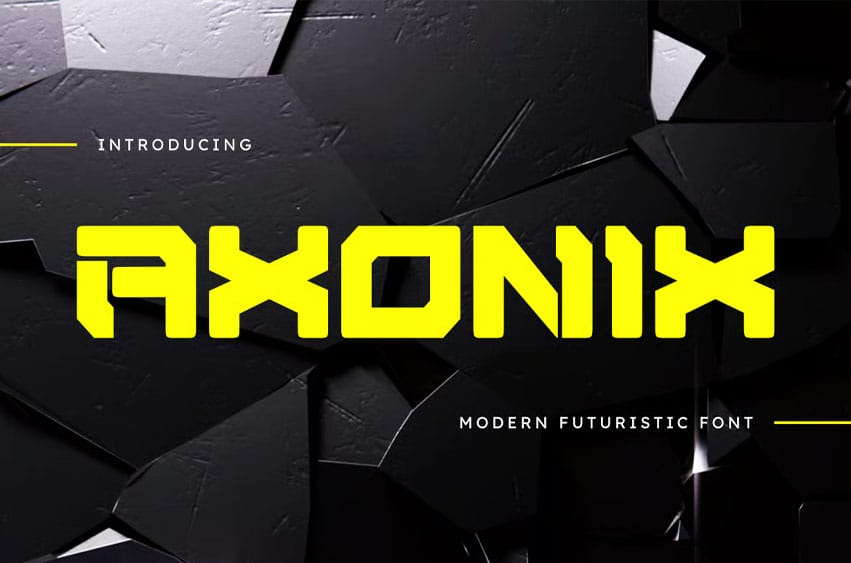
Axonix Font is a Futuristic Cyberpunk Display Font. Log in to the grid with Axonix, a display font that bridges the gap between human and machine. Inspired by the sharp aesthetics of cyberpunk and the complexity of neural networks, Axonix is engineered for impact.
It features aggressive angles, precise digital cuts, and a strong, wide stance, making it perfect for powerful headlines and logos. This isn’t just futuristic; it’s cybernetic. Whether you’re designing a high-octane gaming logo, a dystopian movie poster, or branding for a tech innovator, Axonix gives your project an unmistakable high-tech, edgy, and forward-thinking voice.
Connect to the future of typography.
Perfect For:
- Gaming & Esports Branding (Logos, Overlays)
- Cyberpunk Movie Posters & Titles
- Techno, Industrial, & EDM Album Covers
- Tech Startup & App Logos
- Streaming Channel Branding (Twitch, YouTube)
- Futuristic UI/HUD (Heads-Up Display) Mockups
Axonix Font Preview